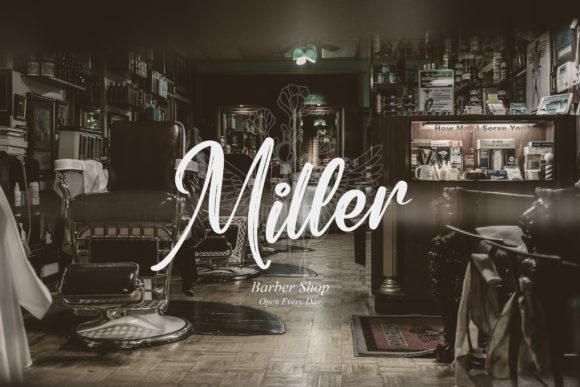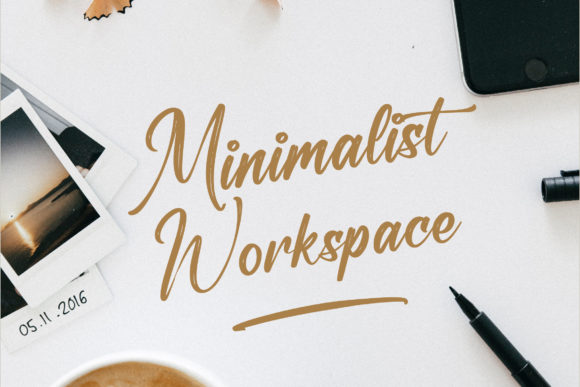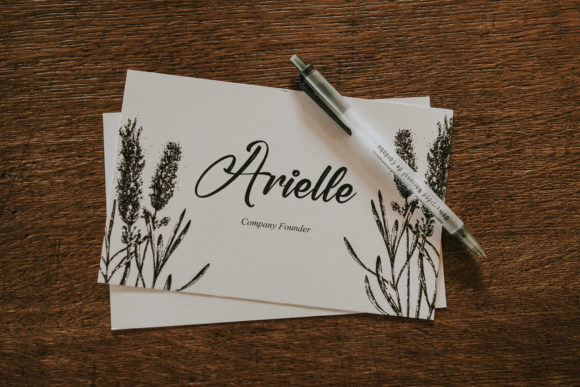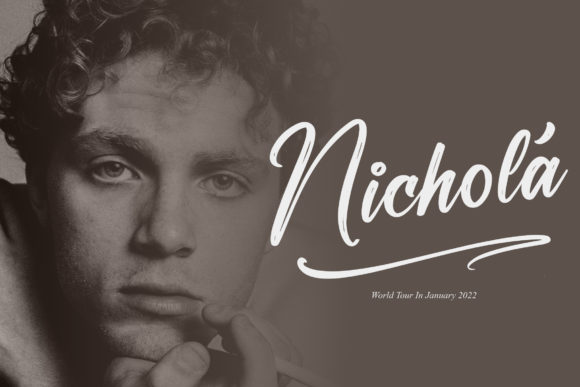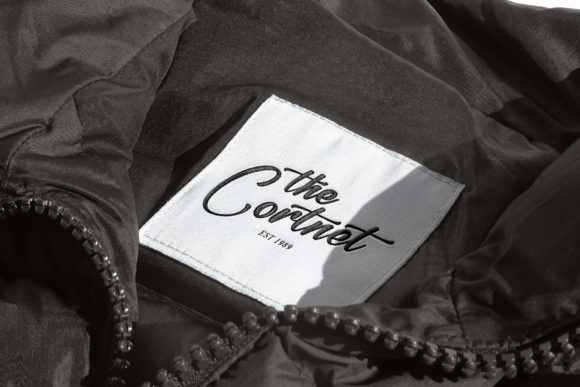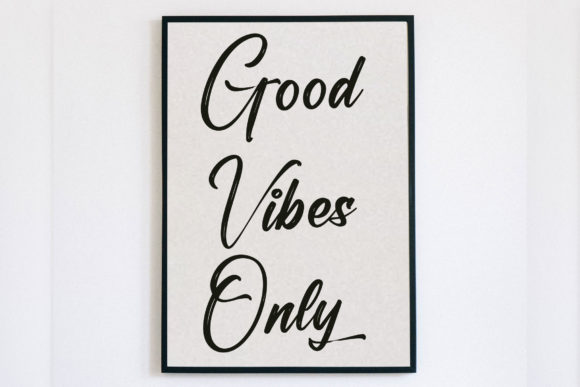
Discover the Timeless Elegance of Anthony Hunters Font
You know that feeling when you stumble upon the perfect font to elevate your design project? It’s like a spark of creativity has ignited, and everything falls into place. For designers, finding the right font can be a game-changer. That’s where Anthony Hunters Font comes in – a stunning handwritten font that perfectly blends classic calligraphy with modern flair.
This exquisite font is designed to take your projects to new heights. Whether you’re working on a branding campaign, a wedding invitation, or a blog post, Anthony Hunters Font is sure to bring a touch of sophistication and elegance. Its versatility and unique character make it a valuable addition to any designer’s toolkit. With Anthony Hunters Font, you’ll be able to create designs that are both timeless and trendy – a true winning combination.
- Unique Characteristics: The font’s distinctive design features a mix of modern and vintage elements, making it suitable for a wide range of design projects, from contemporary to retro-themed.
- Legibility: Anthony Hunters Font is designed for optimal legibility, with clear letterforms and a balanced x-height, making it easy to read in various contexts.
Designer Review: Anthony Hunter’s Font
Anthony Hunter’s font has been a refreshing addition to my design toolkit. The clean and modern aesthetic ✨ works well for a wide range of applications, from digital interfaces to print materials.
One of the standout features of this font is its excellent legibility ✨. The clear distinction between letters and the well-balanced proportions make it easy to read, even at smaller sizes.
While Anthony Hunter’s font is an excellent choice for many projects, there are a few limitations to consider:
- ⚠️ Limited character set: The font only includes a standard character set, which may not be suitable for languages that require a broader range of characters.
- ⚠️ No italics or bold: The font does not include italic or bold versions, which may limit its use in certain situations.
Overall, Anthony Hunter’s font is a solid choice for designers looking for a clean and modern aesthetic. While it has some limitations, its excellent legibility and versatility make it a great addition to any design toolkit.
Anthony Hunters Font is ideal for:
1. Modern branding and logos.
2. Digital marketing materials.
3. Minimalist web design.
4. Editorial and publishing materials.